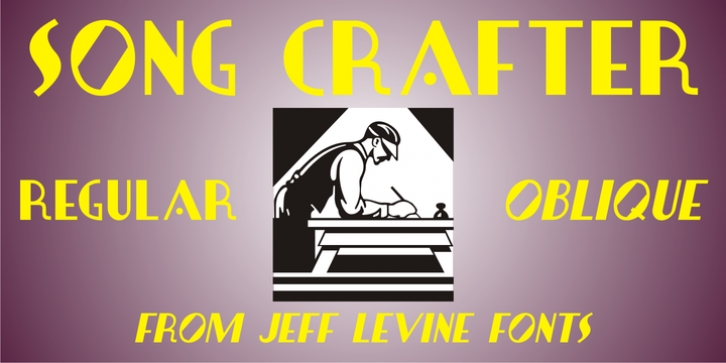
Song Crafter JNL was designed by Jeff Levine and published by Jeff Levine. Song Crafter JNL contains 2 styles and family package options.
Song Crafter JNL was modeled from the writer credits on the cover of the 1943 sheet music for 'This Love of Mine', a tune popularized by Frank Sinatra.
The typeface is available in both regular and oblique versions.